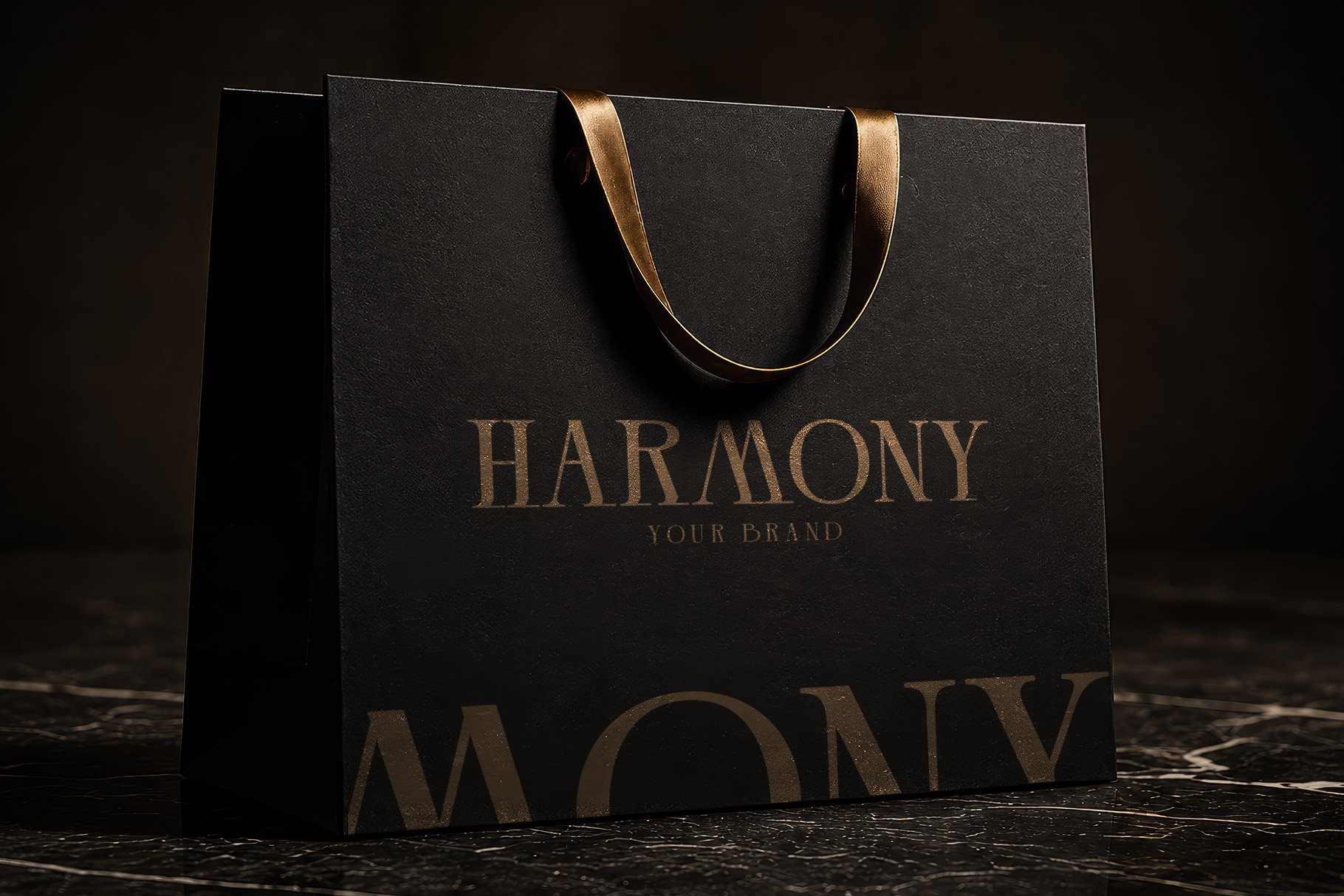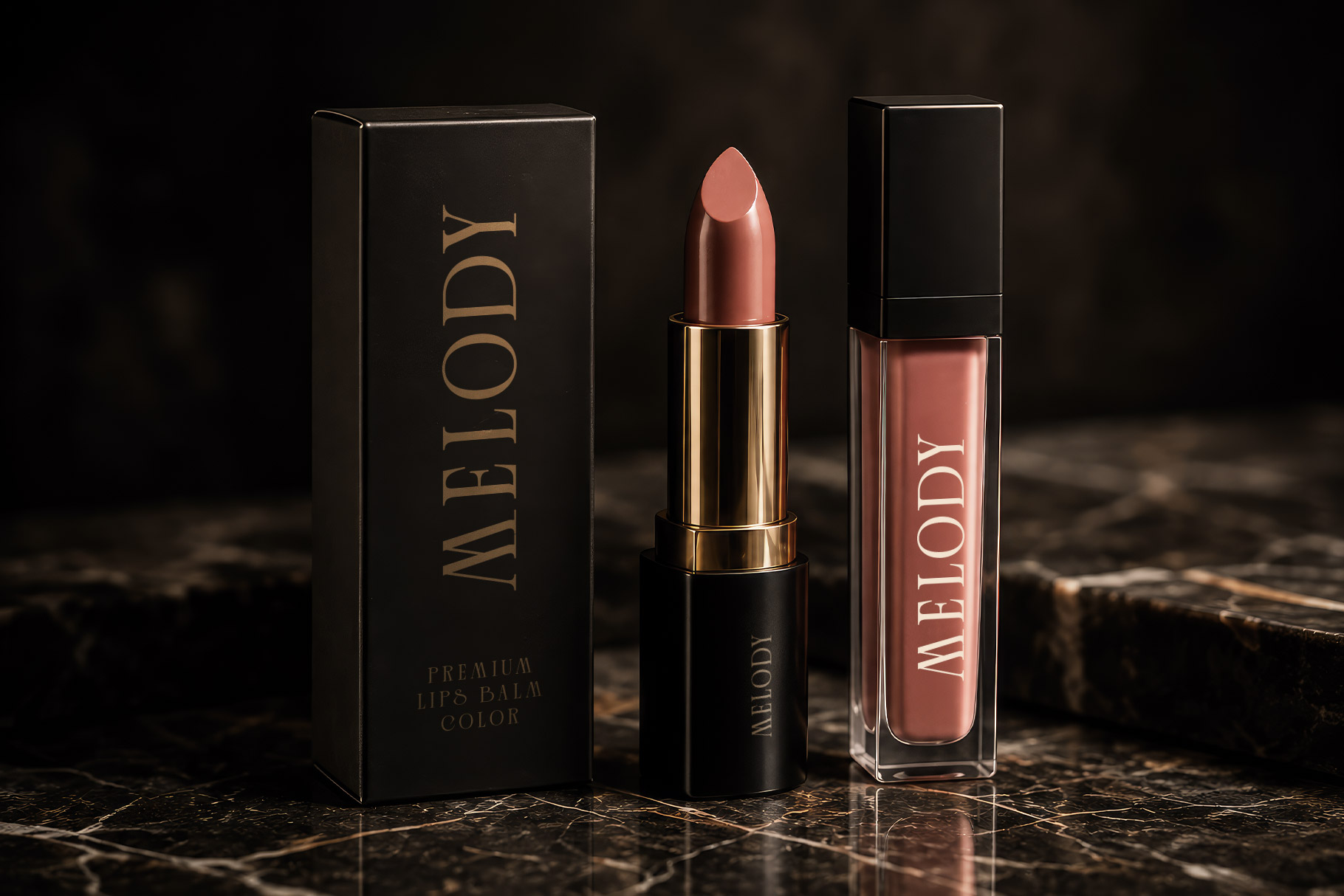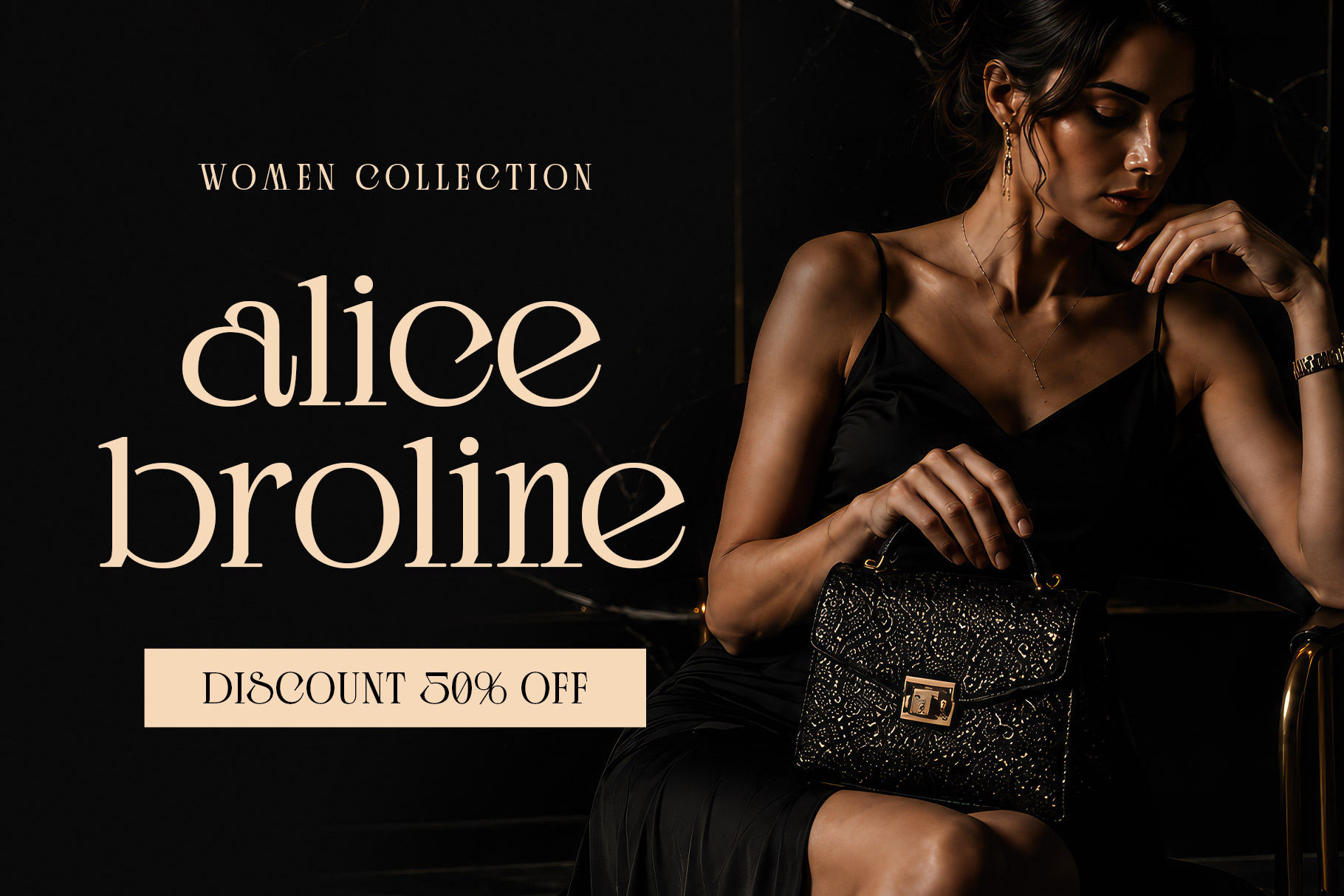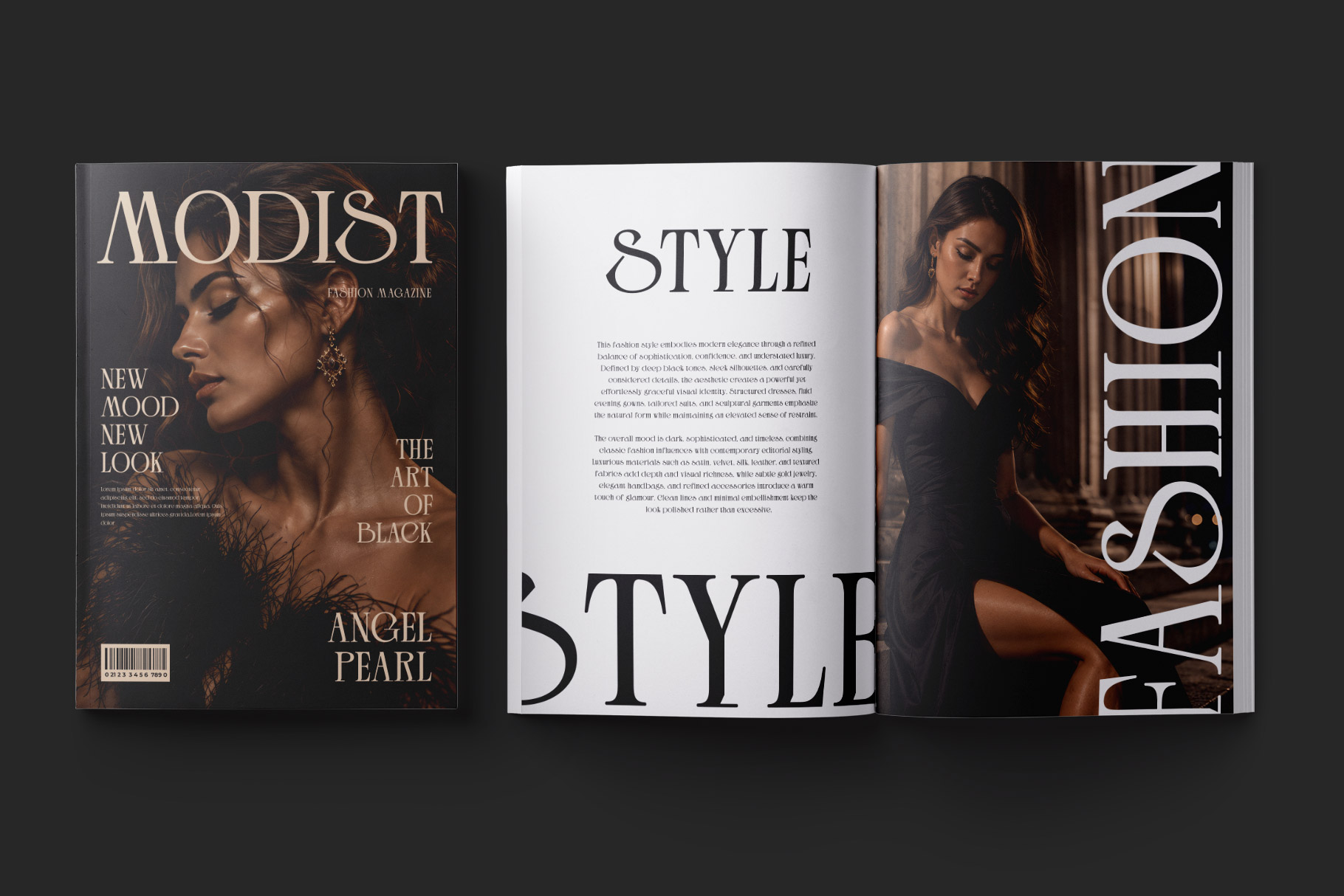
Secholia is elegant serif font embrace grace and high fashion personality. Secholia perfectly choice for any creative endeavor, creating, modern, lifestyle design such as logotype, title, cover, branding, invitations, wedding designs, display and magazine, social media posts, advertisements, printed quotes, product packaging, corporate brand, product designs, labels, photography, watermarks, special events and any other project with elegant touch.
Secholia Elegant Serif Font